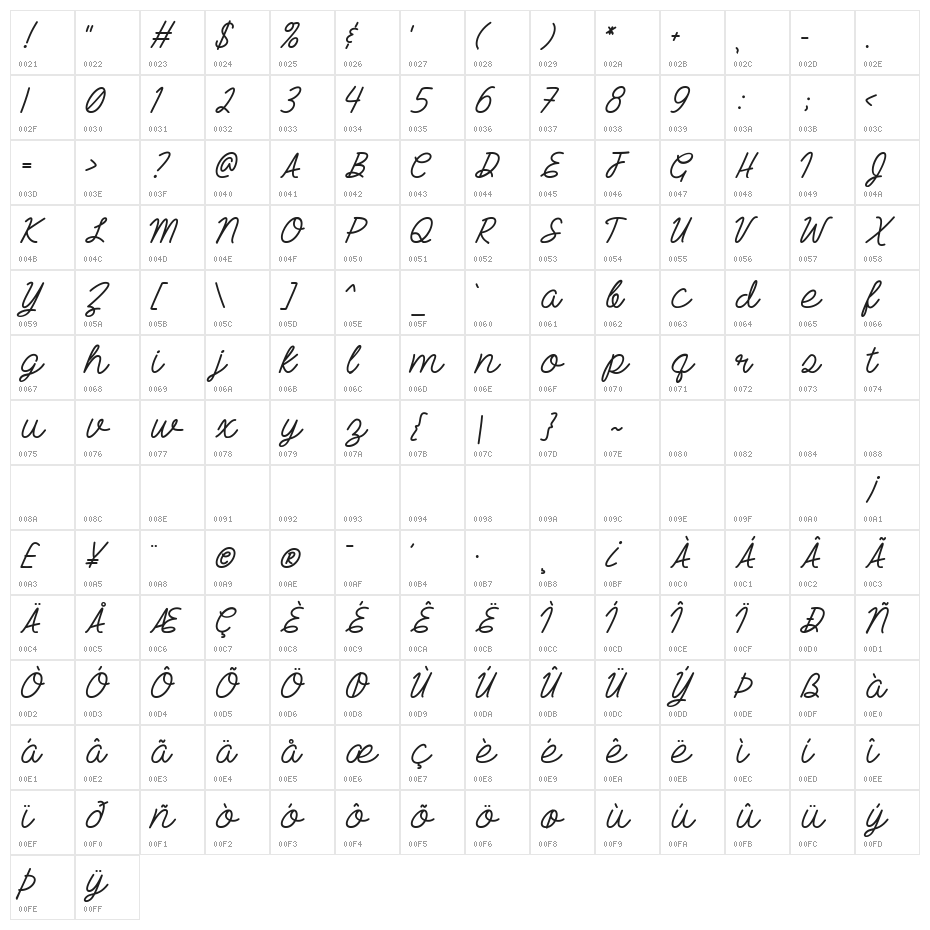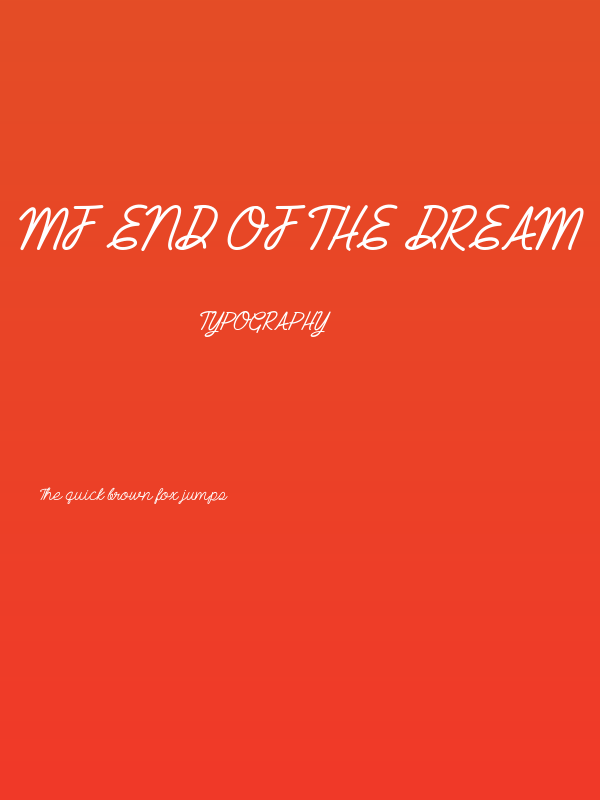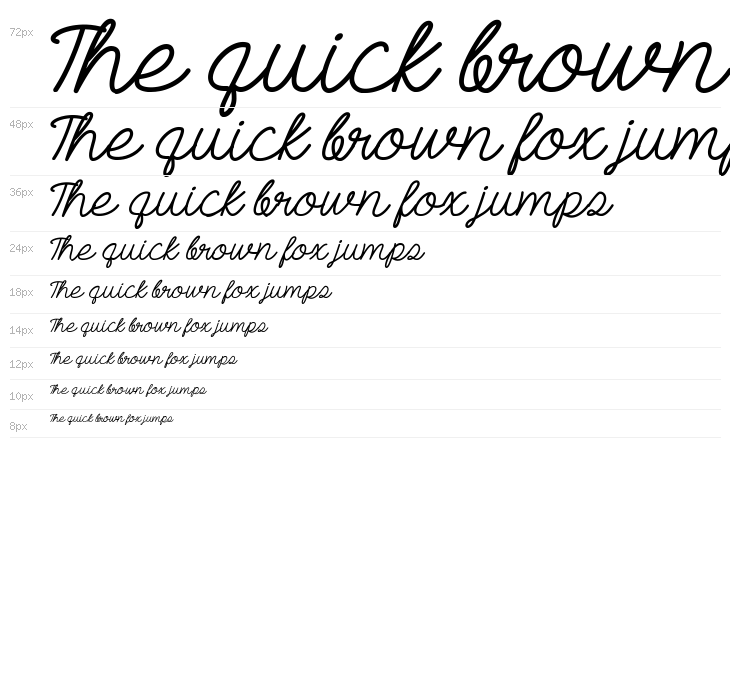
Mf End of the Dream Font
Mf End of the Dream Description
This font features a flowing, cursive style that mimics natural handwriting. The letters are interconnected, creating a seamless and elegant appearance. The strokes are smooth and consistent, with a slight slant that adds to the handwritten feel. The uppercase letters are slightly larger and more pronounced, while the lowercase letters maintain a uniform height, enhancing readability. The numbers and special characters are crafted with the same fluidity, ensuring a cohesive look throughout. This font exudes a personal and artistic touch, making it ideal for projects that require a human element.
| Use Case | Logos, Invitations, Personal Correspondence |
| Proposed Projects | Ideal for wedding invitations, personal letters, greeting cards, and branding materials that require a personal touch. |